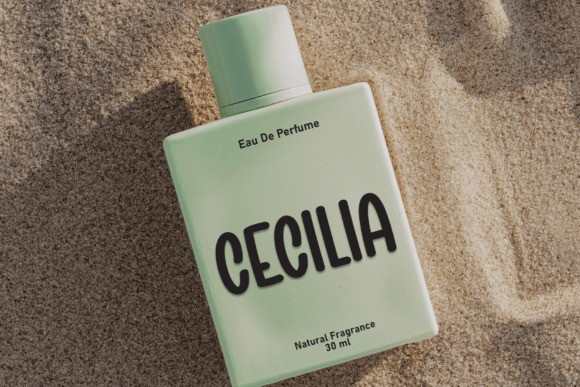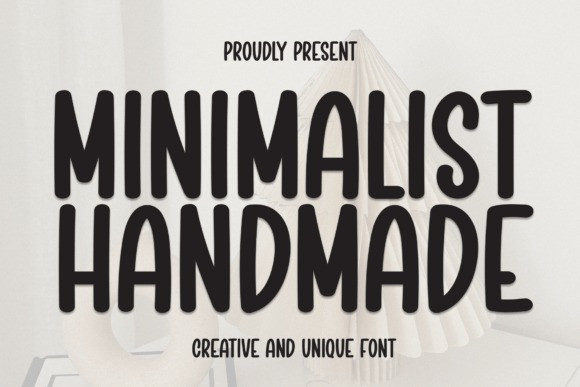
Minimalist Handmade Display Font
Minimalist Handmade Display Font is a fun and versatile sans-serif font. Whether you’re using it for crafting, digital designing, presentations, or greeting card making, it’s perfect!